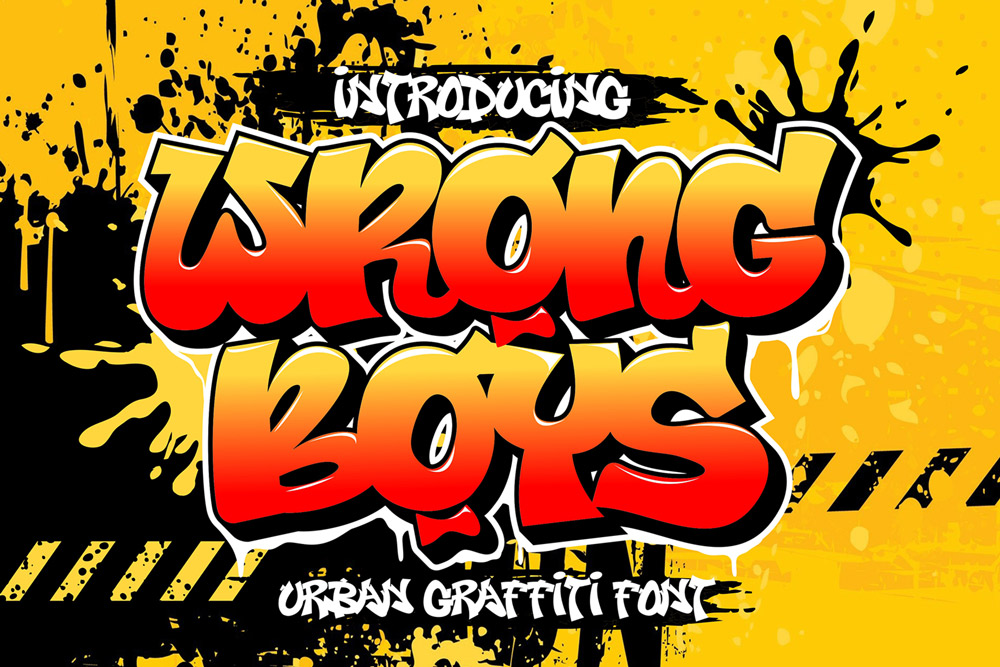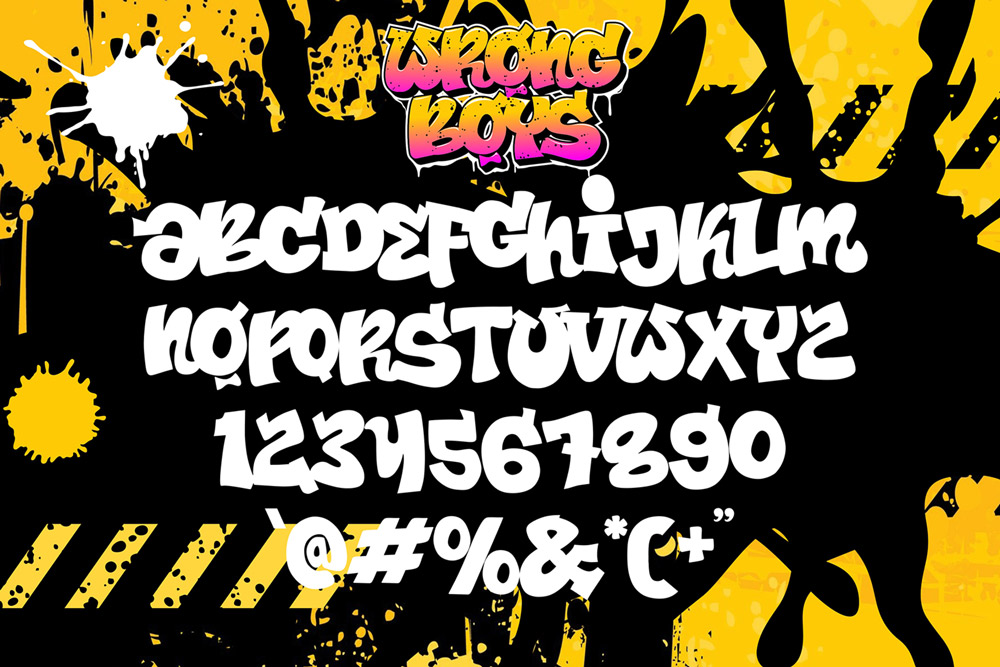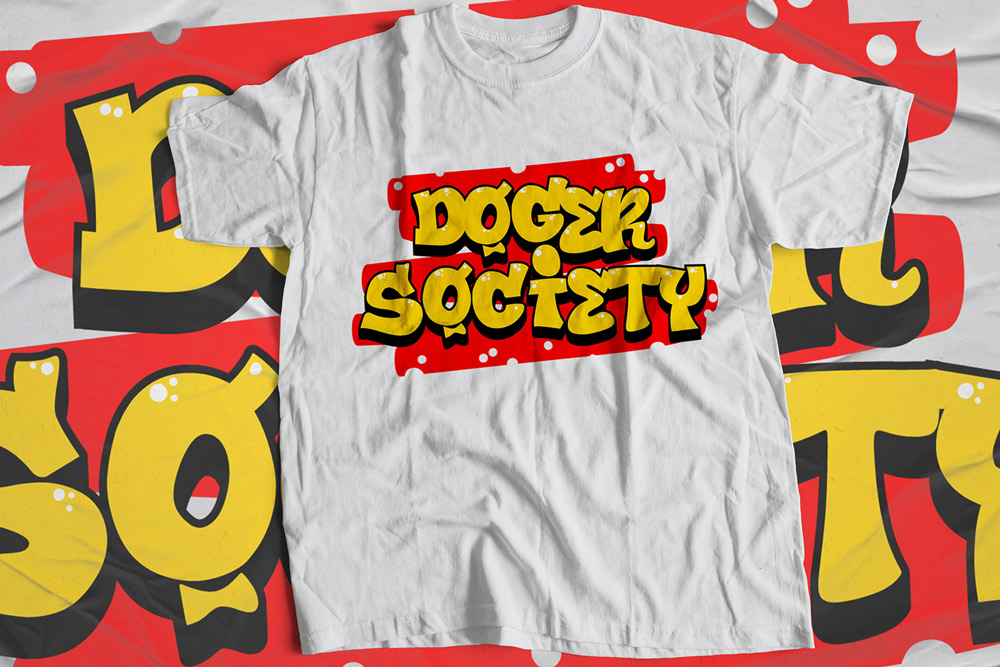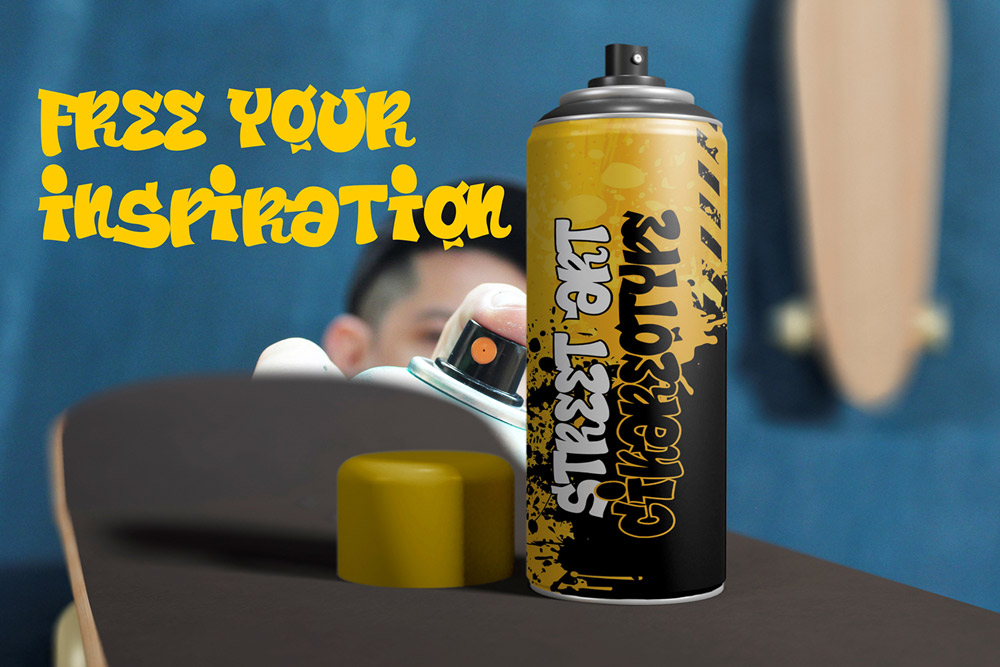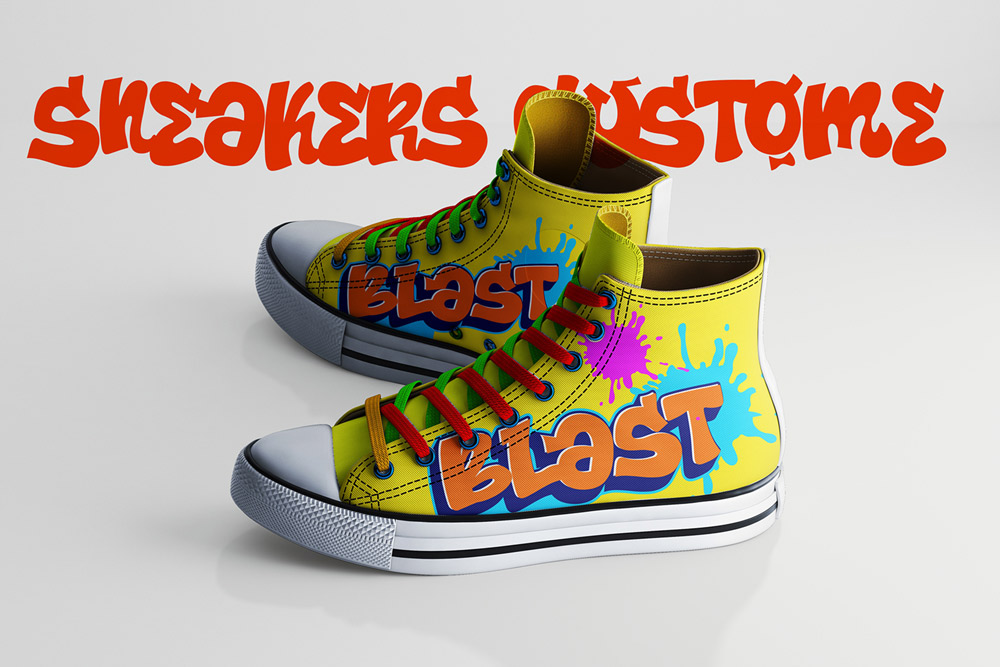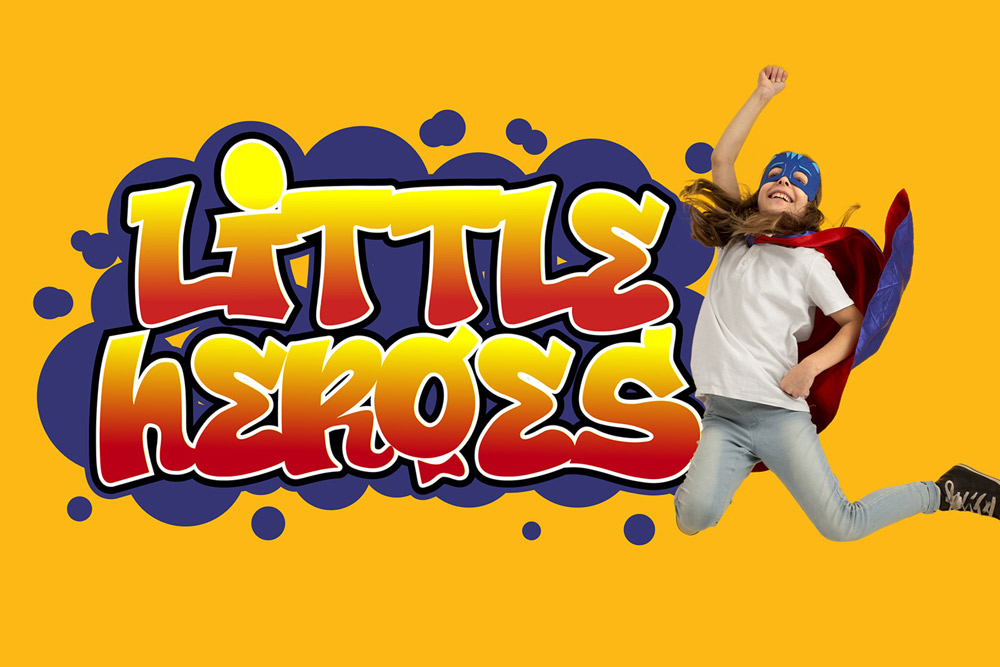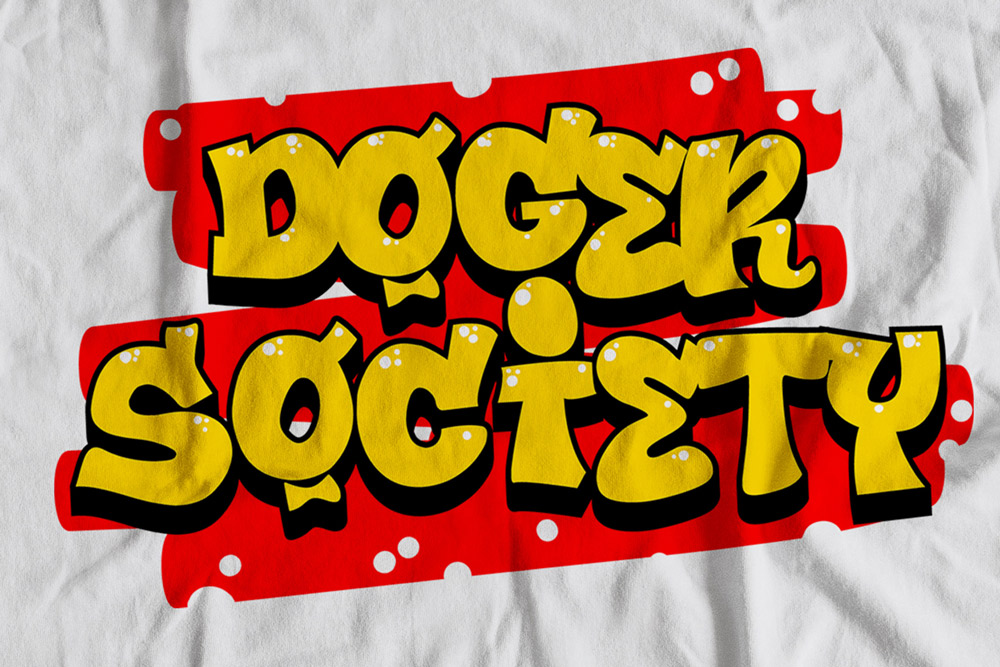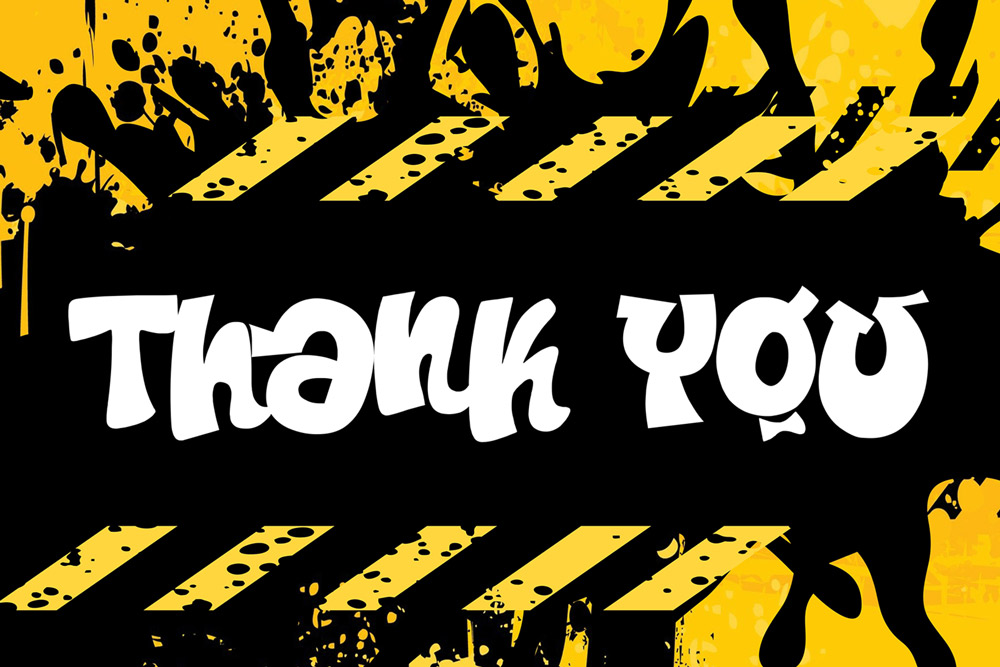
About Wrong Boys
Wrong Boys is a bold chubby graffiti font inspired by playful street art, bubble graffiti lettering, urban wall murals, and modern streetwear typography. Designed with thick rounded letterforms and energetic urban character, this graffiti display font delivers powerful visual impact while maintaining a fun and approachable personality. Whether you are creating streetwear branding, gaming graphics, music artwork, social media content, or urban merchandise, Wrong Boys helps your typography stand out with authentic street culture energy.
This chubby graffiti font combines modern bubble lettering with urban street aesthetics, making it the perfect choice for creators who want typography that feels bold, playful, and memorable. The rounded graffiti structure creates a unique visual identity that works beautifully for logos, posters, apparel graphics, esports branding, and promotional campaigns. Designers searching for a bubble graffiti font with strong commercial appeal will appreciate its balance between expressive creativity and professional usability.
Wrong Boys is carefully crafted to preserve the raw spirit of graffiti culture while maintaining excellent readability across print and digital applications. The thick rounded letterforms instantly attract attention, helping designs feel energetic, youthful, and engaging. From gaming logos and YouTube thumbnails to fashion campaigns and hip hop posters, this urban display font adapts perfectly to a wide range of creative industries.
Chubby Graffiti Font Style
Wrong Boys features bold bubble-inspired graffiti letterforms influenced by urban tagging culture, spray paint murals, street art, and playful typography trends. The rounded structure creates a strong yet friendly urban appearance.
Uppercase Characters
This urban graffiti font includes complete uppercase characters designed with thick rounded details and authentic street-inspired personality.
Multilingual Support
Wrong Boys supports multilingual characters, making it suitable for international branding projects, social media graphics, merchandise, posters, and promotional campaigns.
Number and Punctuation
This modern graffiti font includes complete numbers and punctuation marks for flexible typography compositions across digital and print media.
Why Designers Love Wrong Boys
Fun and Playful Urban Personality
Designers love Wrong Boys because it combines authentic graffiti culture with a playful bubble typography style. The rounded letterforms create strong visual impact while maintaining a friendly and approachable appearance.
Perfect for Streetwear Branding
Wrong Boys works exceptionally well for clothing brands, urban fashion campaigns, sneaker promotions, skateboard graphics, and youth-oriented streetwear collections. The bubble graffiti style creates a memorable visual identity.
Excellent for Gaming and Entertainment Graphics
This chubby graffiti font is ideal for gaming logos, esports branding, YouTube thumbnails, Twitch banners, music posters, and entertainment visuals. The bold lettering instantly grabs attention.
High Engagement for Social Media Content
Content creators and digital marketers use Wrong Boys for Instagram graphics, TikTok visuals, YouTube banners, and promotional campaigns because the playful typography feels energetic and highly engaging.
Flexible Across Creative Projects
Despite its playful appearance, Wrong Boys remains highly versatile and works effectively across branding systems, posters, merchandise, advertising campaigns, packaging, and digital media.
Perfect For
Wrong Boys is perfect for:
- Streetwear branding
- Bubble graffiti logos
- Gaming typography
- Esports branding
- Hip hop posters
- Music artwork
- Social media graphics
- YouTube thumbnails
- Urban merchandise
- Sticker design
- Skateboard graphics
- Fashion campaigns
- Promotional banners
- Creative typography projects
- Digital advertising
- Kids branding
- Youth culture visuals
- Festival posters
- Apparel graphics
- Entertainment branding
Bubble Graffiti Typography for Modern Branding
Modern branding trends increasingly embrace bubble graffiti typography because it communicates creativity, friendliness, confidence, and youthful energy. Wrong Boys is specifically designed to support these modern branding trends through thick rounded letterforms and authentic urban aesthetics.
The bubble graffiti structure creates typography compositions that feel approachable while still delivering strong visual impact. This modern graffiti font is especially effective for oversized headlines, branding systems, gaming graphics, apparel designs, and social media campaigns targeting younger audiences.